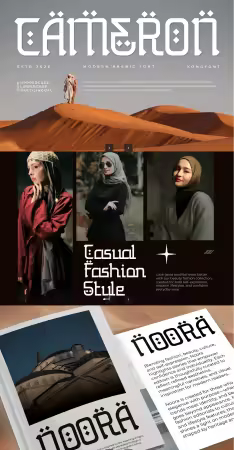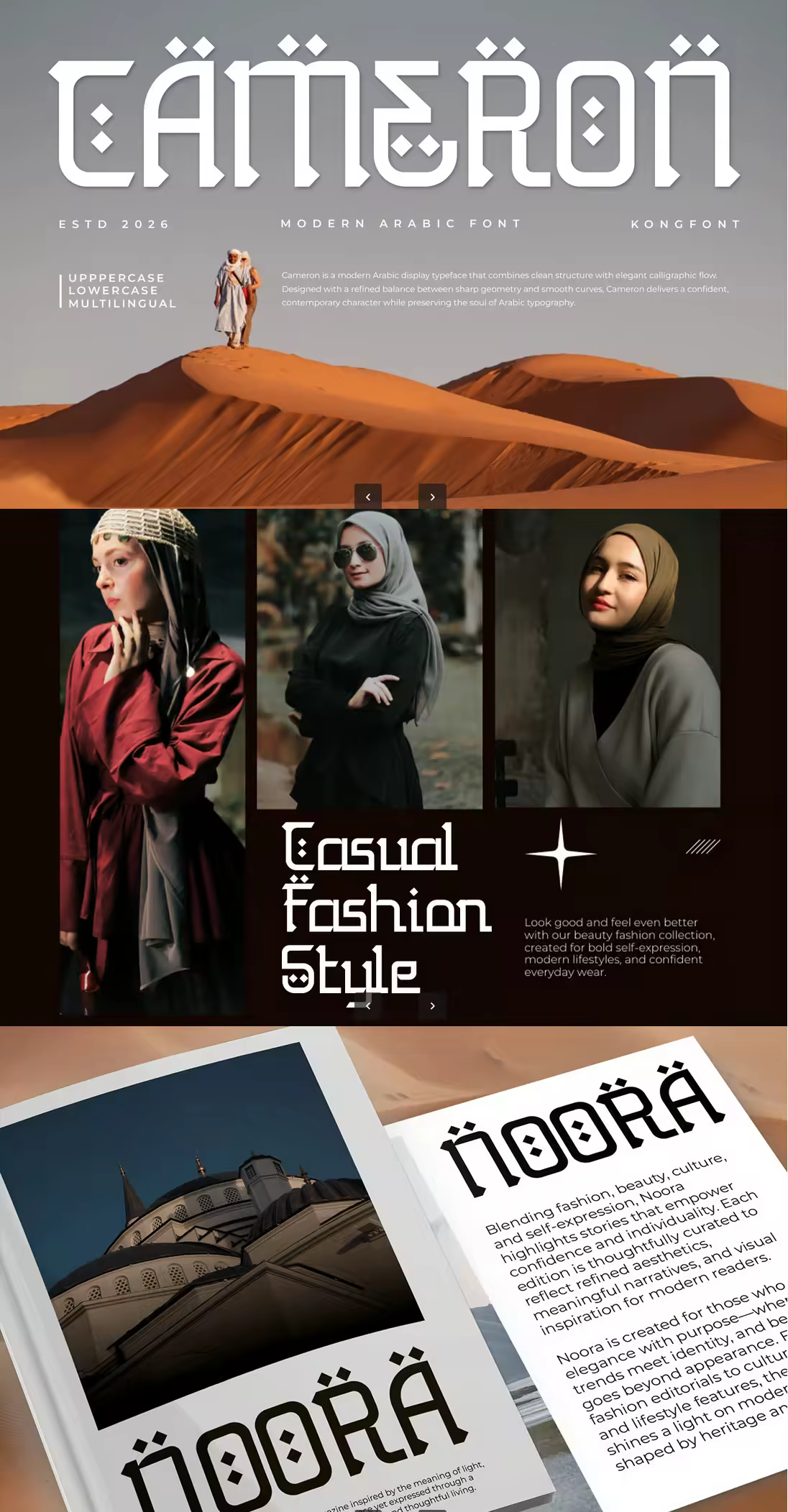
Cameron – Modern Arabic Font
Introducing Cameron, a modern Arabic font crafted to deliver clean aesthetics and contemporary clarity while preserving the beauty of Arabic typographic tradition. With its smooth strokes, balanced proportions, and minimalist approach, Cameron offers a fresh and adaptable style suitable for a wide range of creative and professional projects.
Cameron supports Arabic writing standards with carefully designed characters, punctuation, and numerals, ensuring reliable performance across platforms. Whether you are building a modern brand identity or crafting clean cultural designs, Cameron provides a versatile foundation with a sophisticated Arabic character.